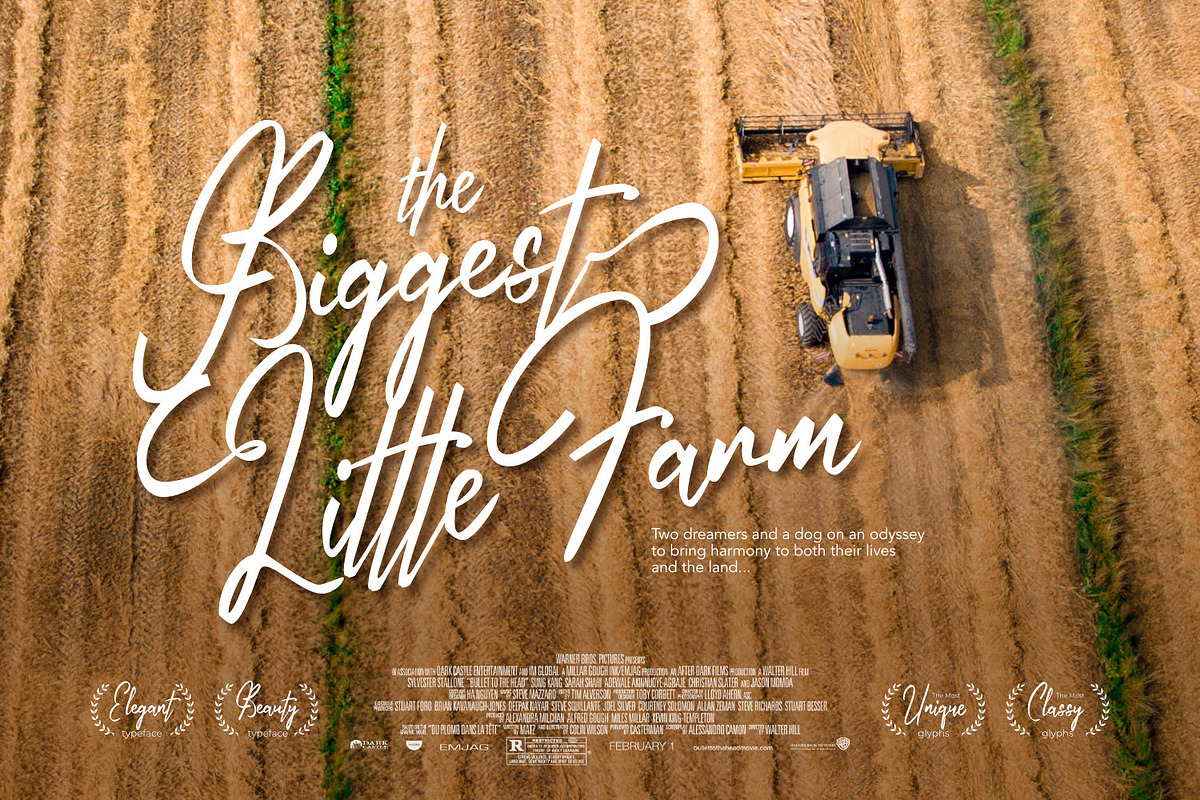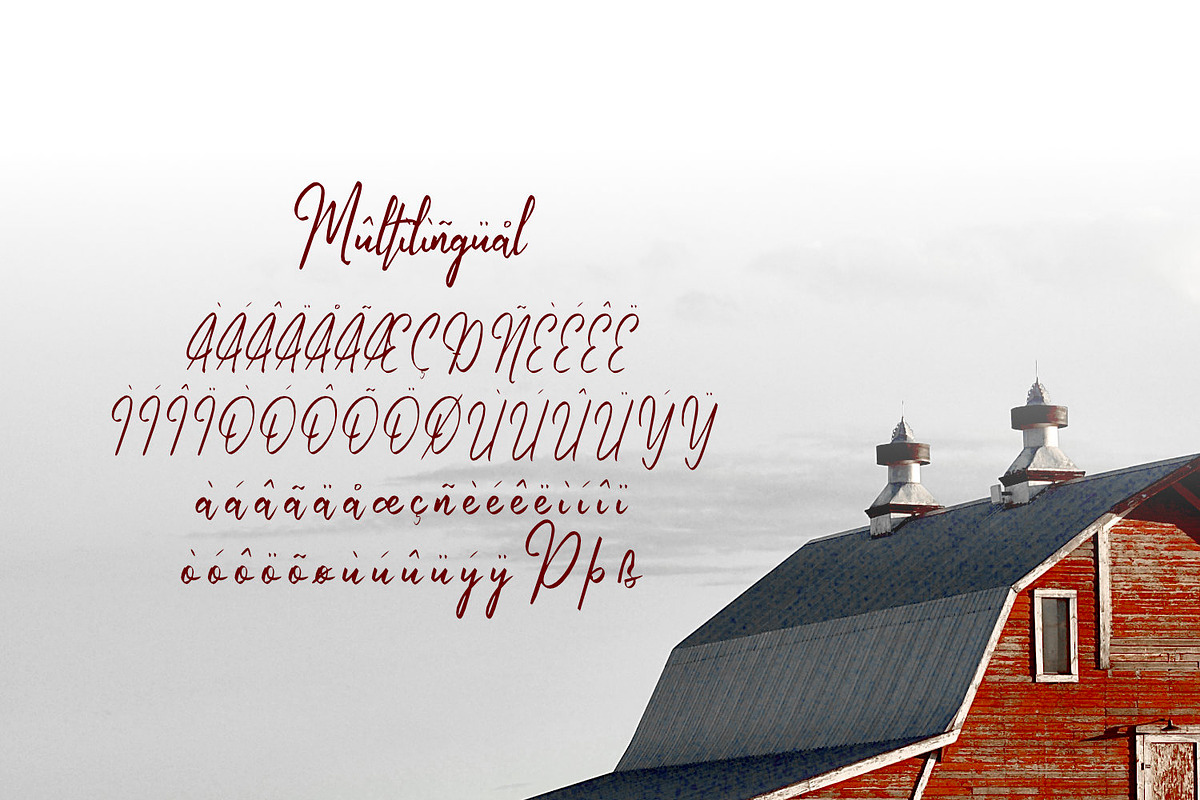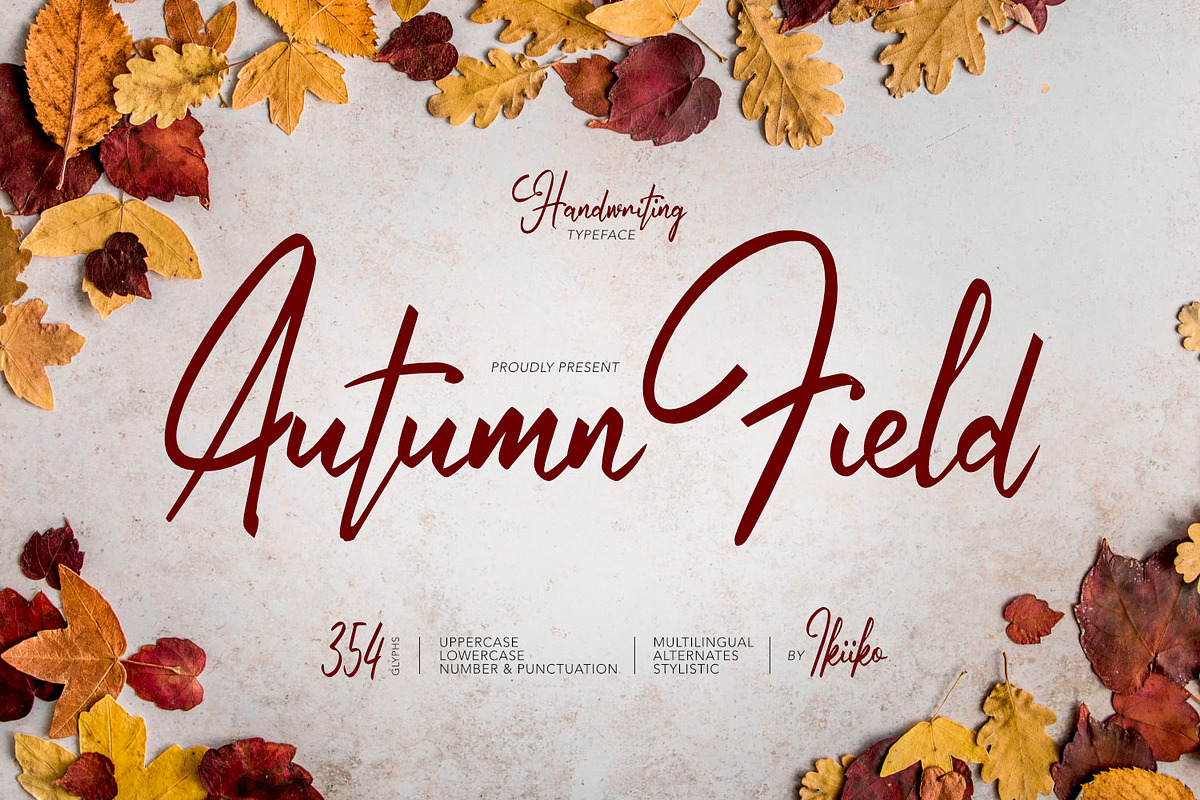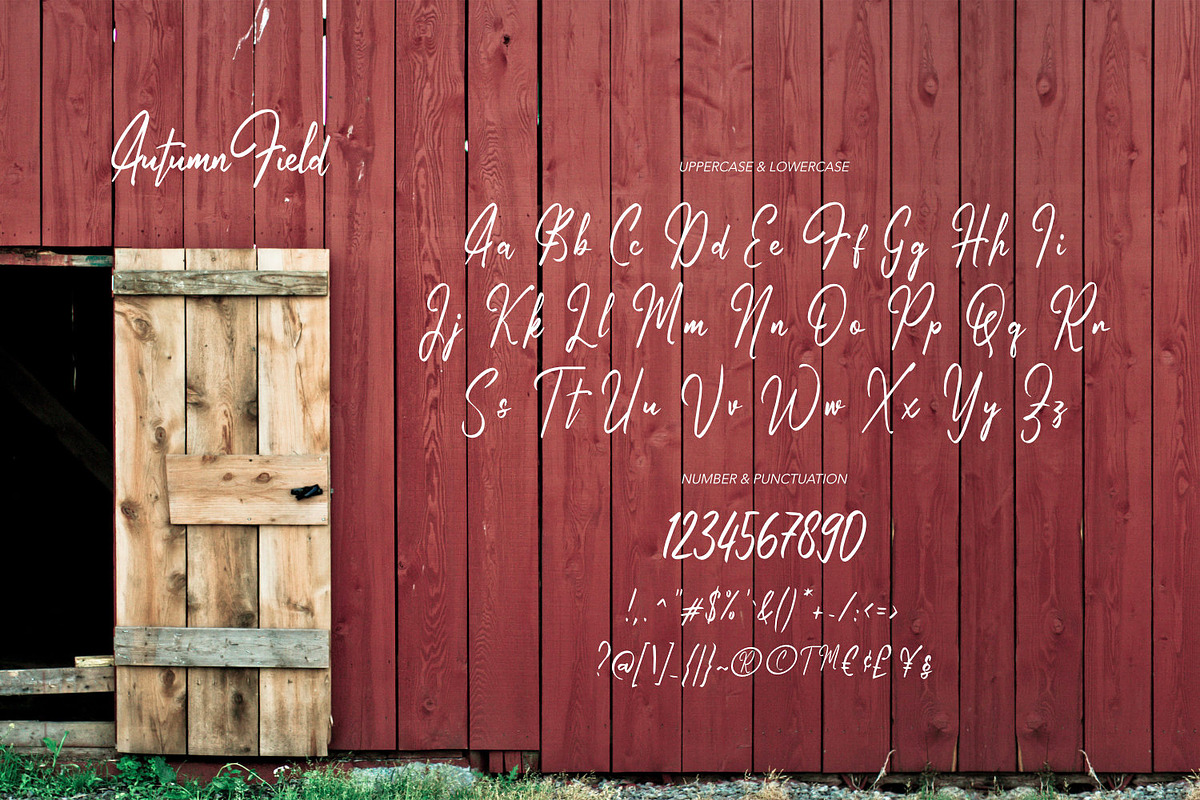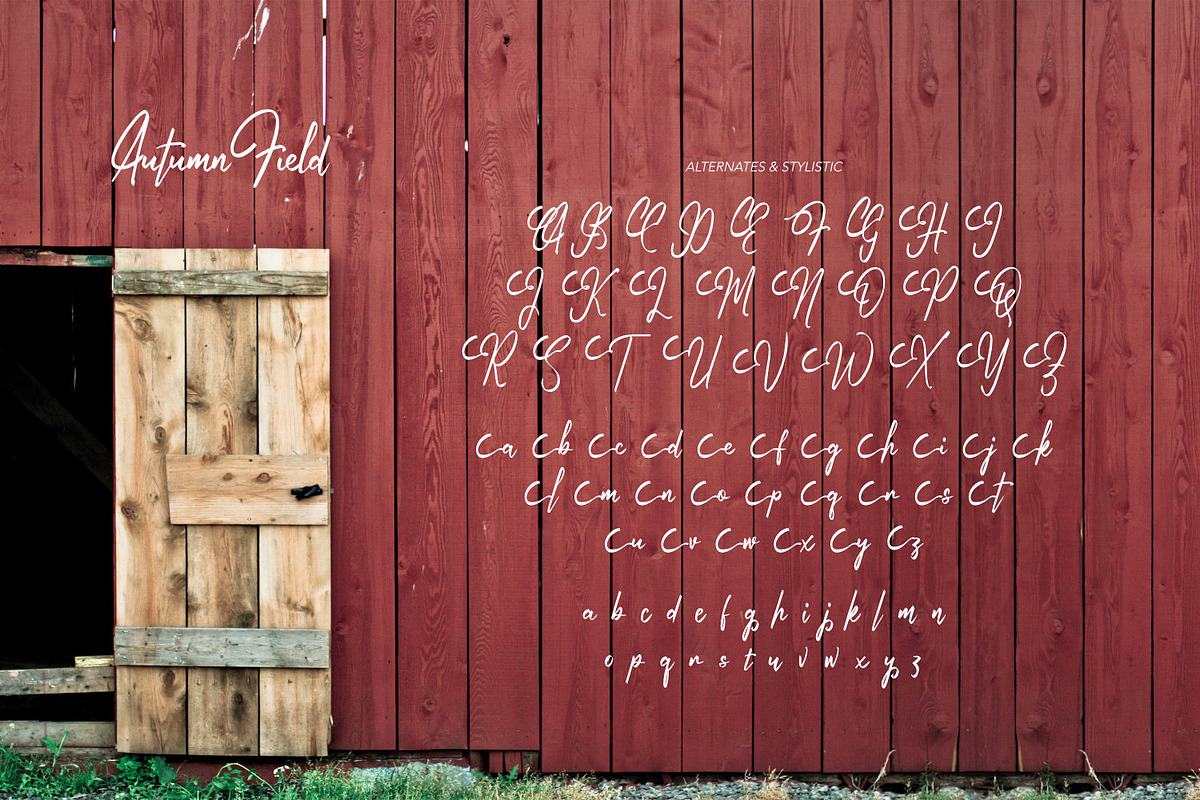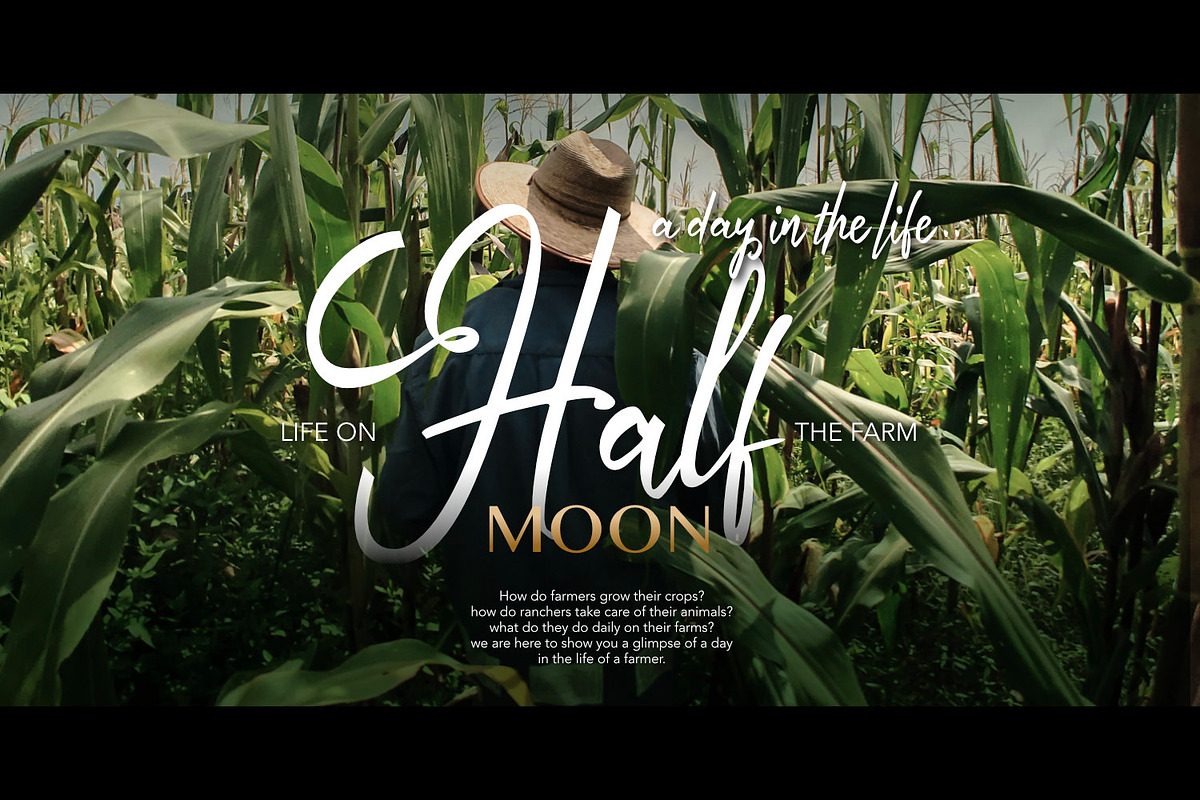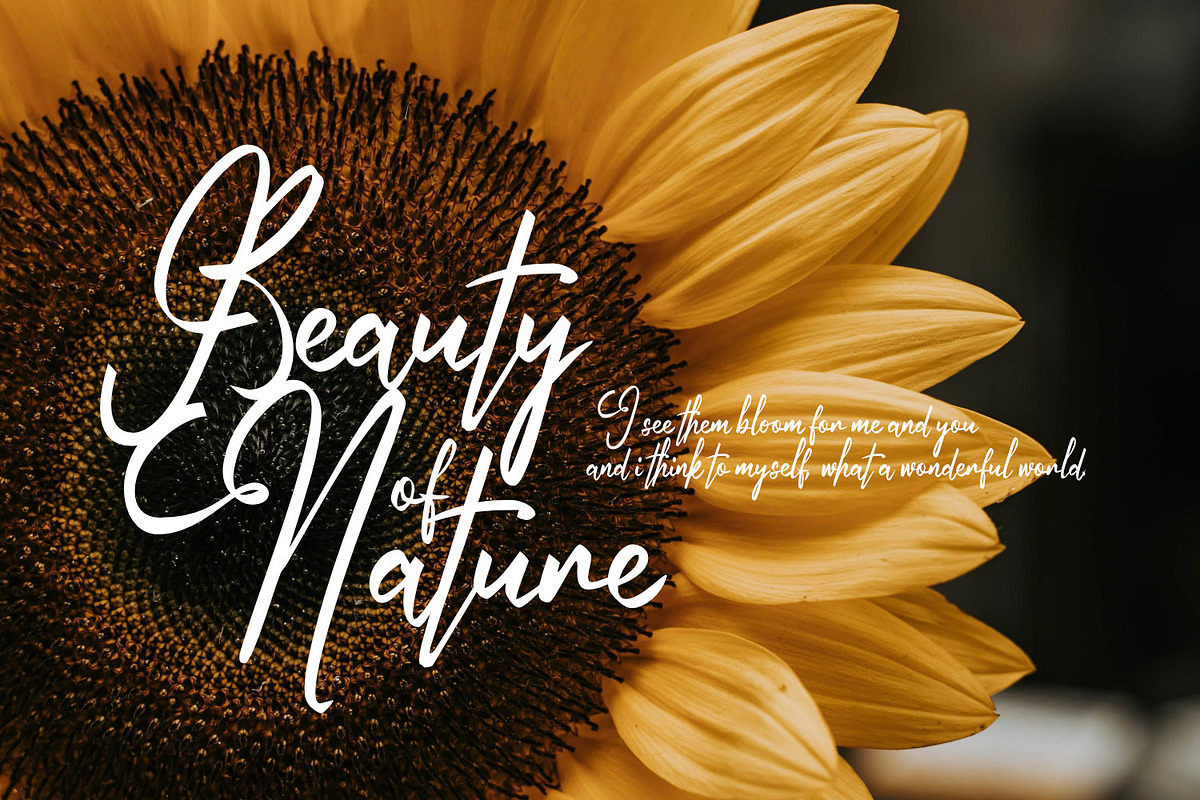
Autumn Field - Handwriting Type
Introducing Autumn Field - Handwriting Type created by ikiiko.
Autumn Field is rough and exotic handwriting style with unique line curves. Autumn Field is also combine with a ton of stylistic to choose. This typeface is perfect for an elegant logo, poster font, magazine layout, headline font, header page, beauty product, packaging product, quotes, or simply as a stylish text overlay to any background image.
- Number & Punctuation
- Alternates & Stylistic